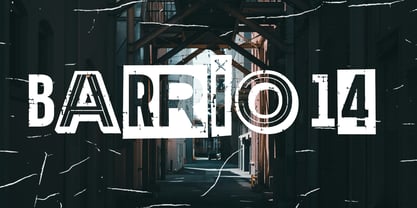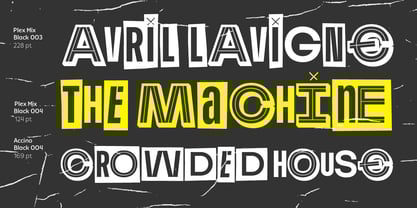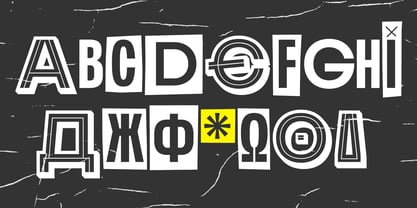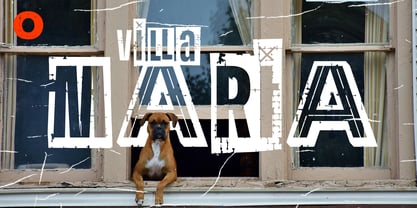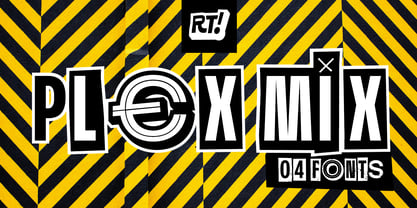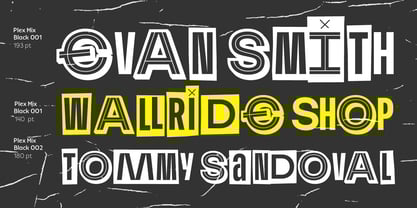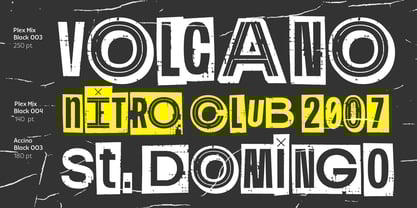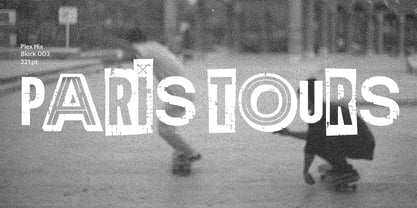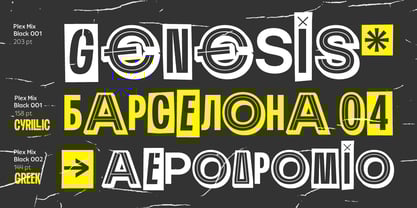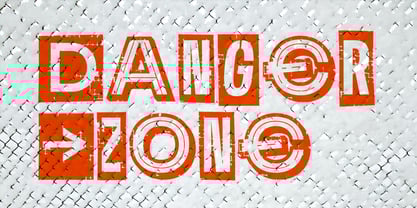
Plex Mix
by RodrigoTypo
The Plex Mix Font Family was designed by Rodrigo Araya Salas and published by RodrigoTypo. Plex Mix contains 4 styles and family package options. More about this family
Plex Mix is ​​an external version of "Plex Beta" which consists of 4 fonts, 2 clean forms and 2 dirty forms like "Rough" also contains Cyrillic and Greek for multilingual projects.